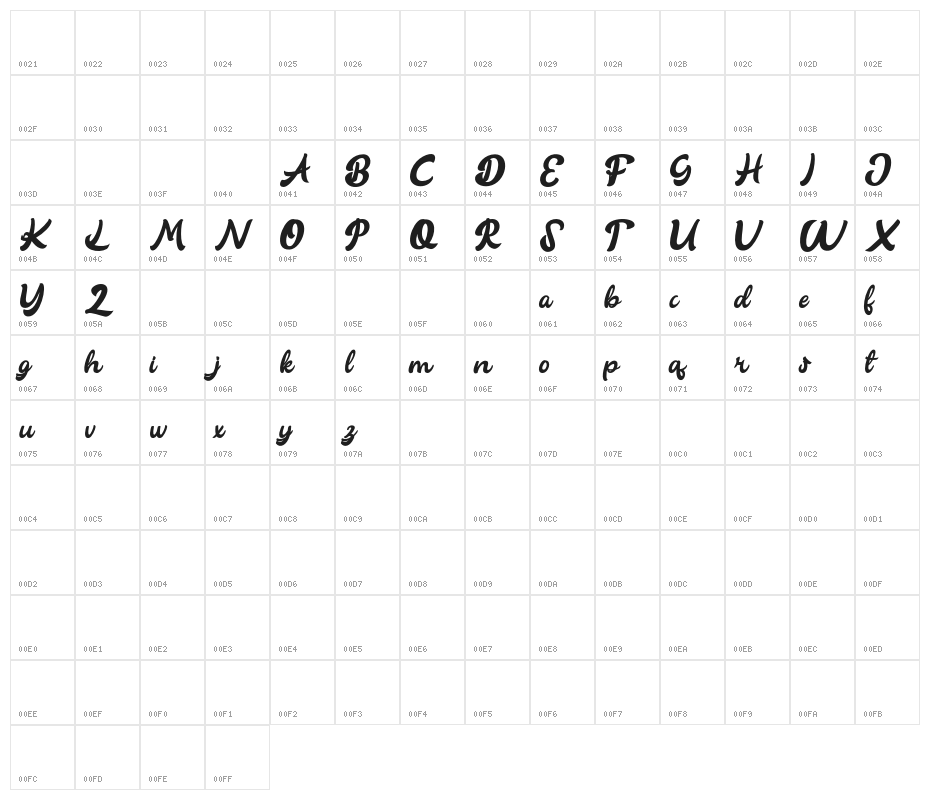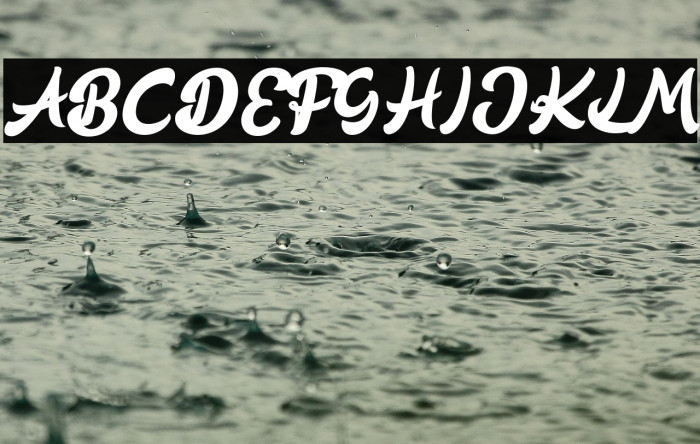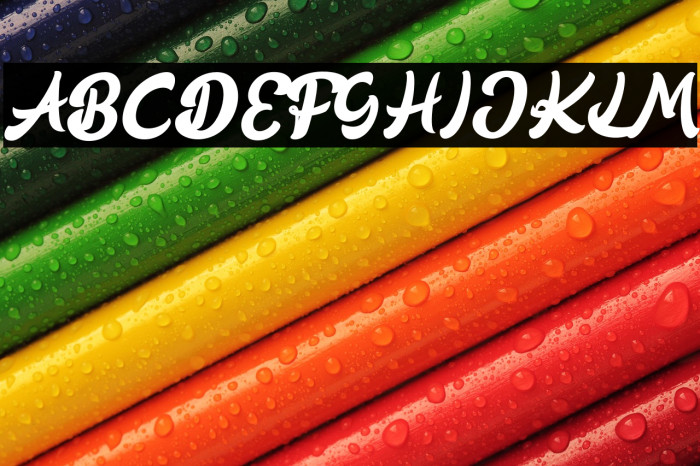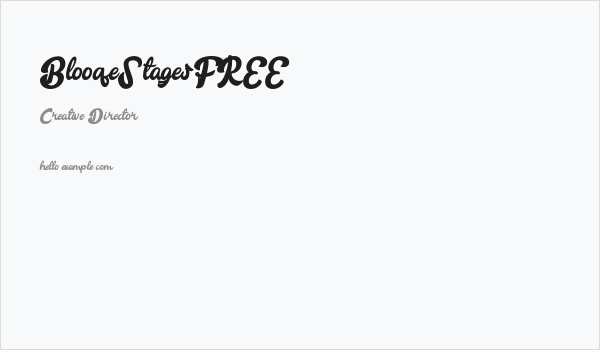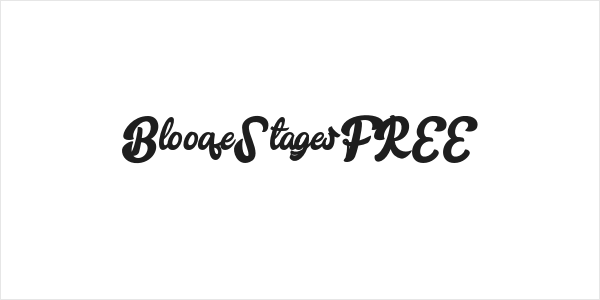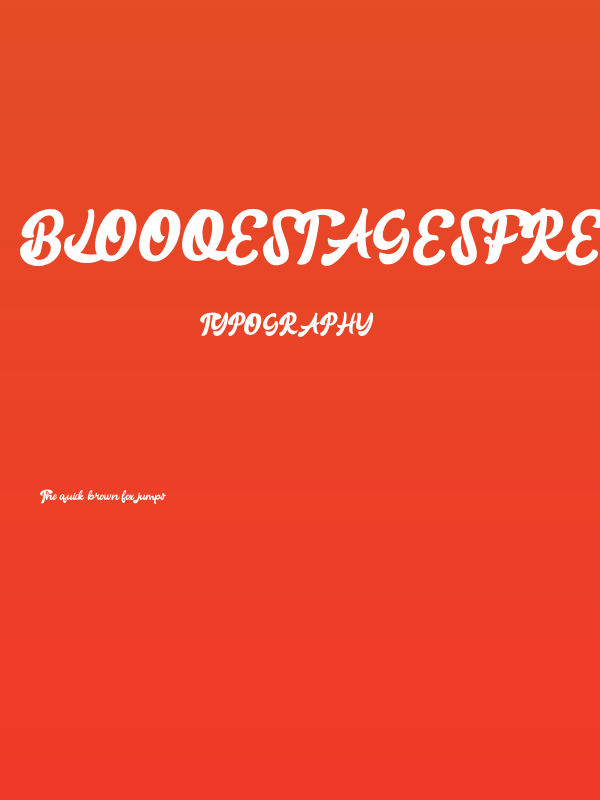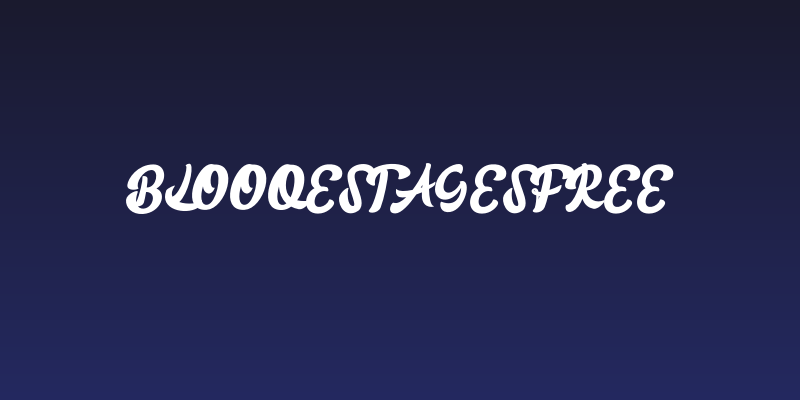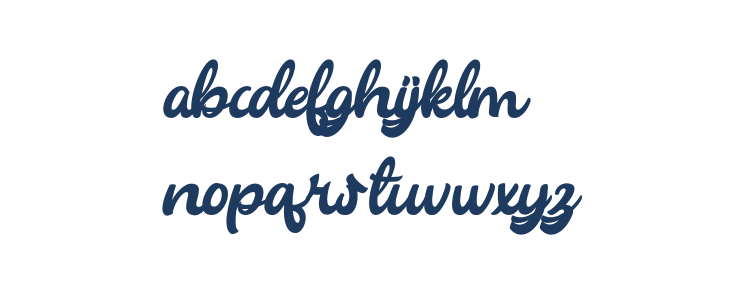
This font features a bold and flowing script style, characterized by its smooth, cursive letterforms that convey a sense of elegance and fluidity. The uppercase letters are slightly more ornate, with sweeping curves and flourishes that add a touch of sophistication. The lowercase letters maintain a consistent flow, with rounded edges and a harmonious balance between each character. This font's design is both playful and refined, making it suitable for a variety of creative applications. The overall appearance is cohesive, with a consistent stroke width that enhances readability while maintaining its decorative appeal.
Use CaseLogos, Headlines, Invitations
Proposed ProjectsIdeal for wedding invitations, branding, greeting cards, and elegant signage.